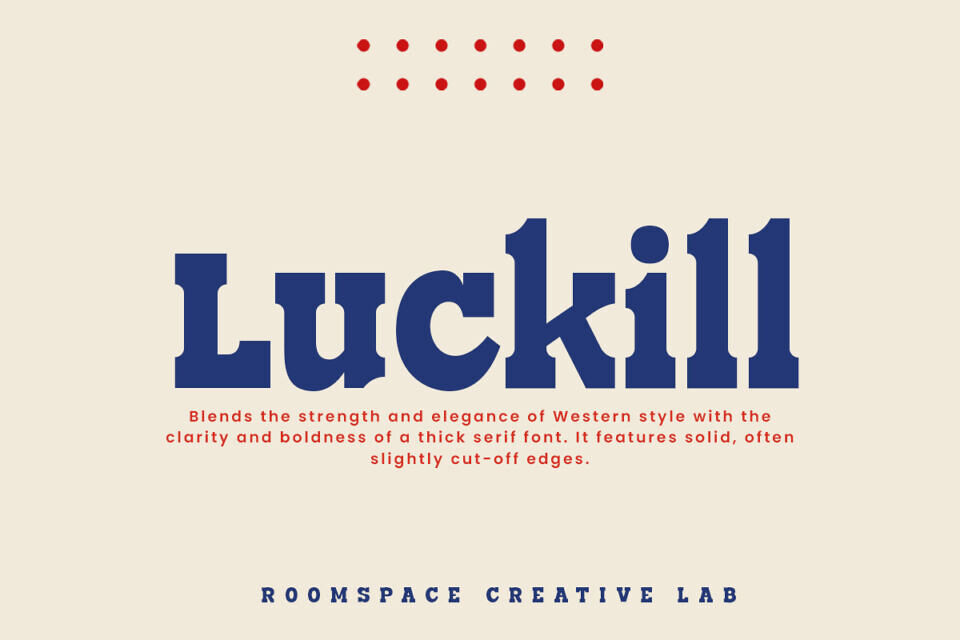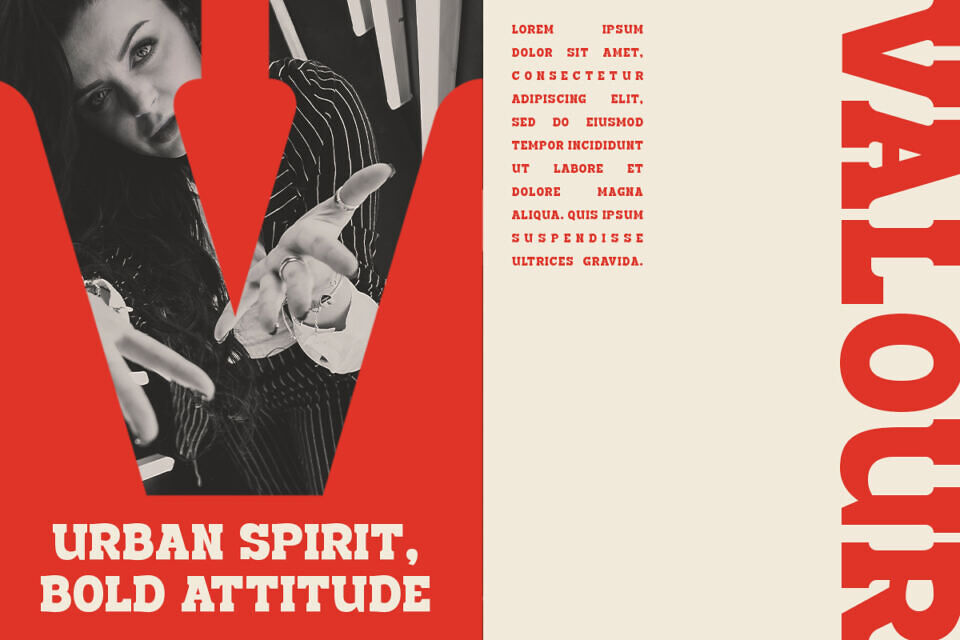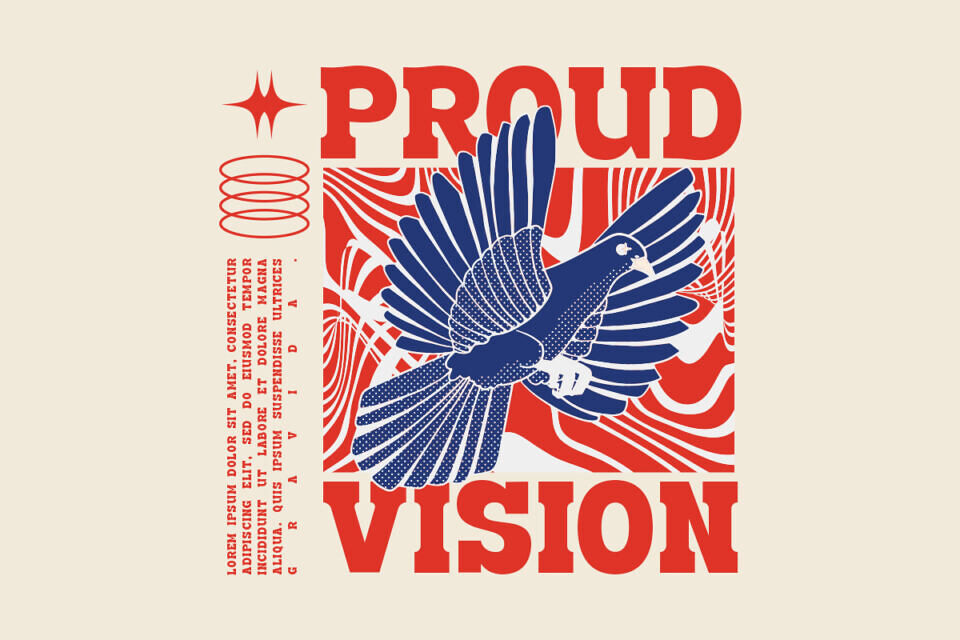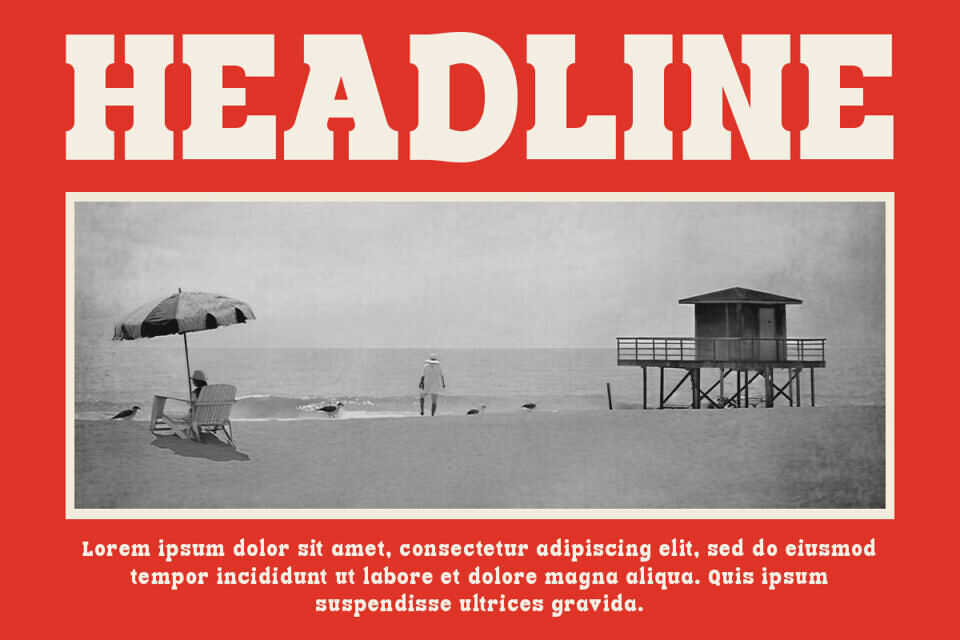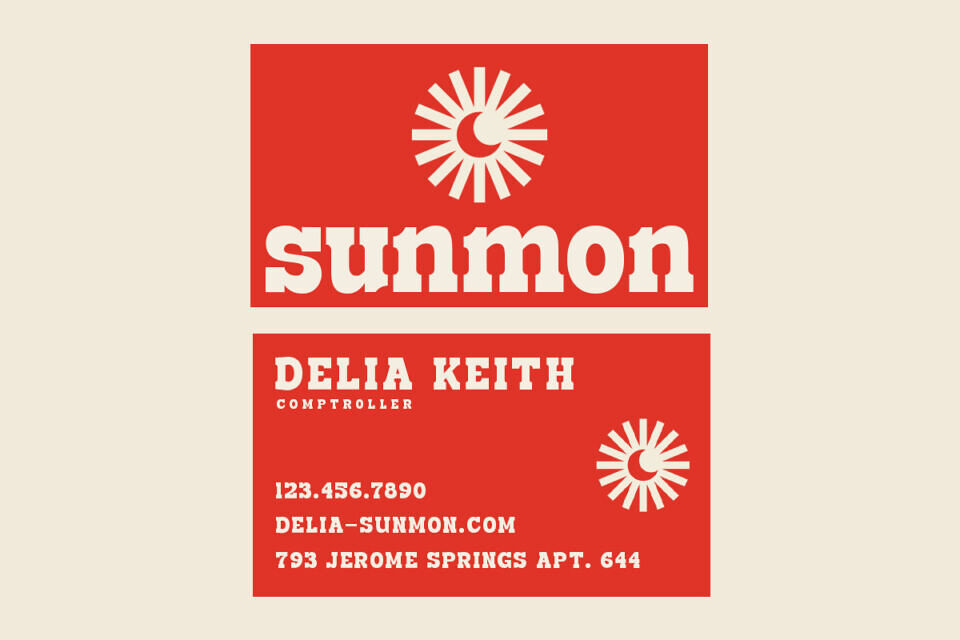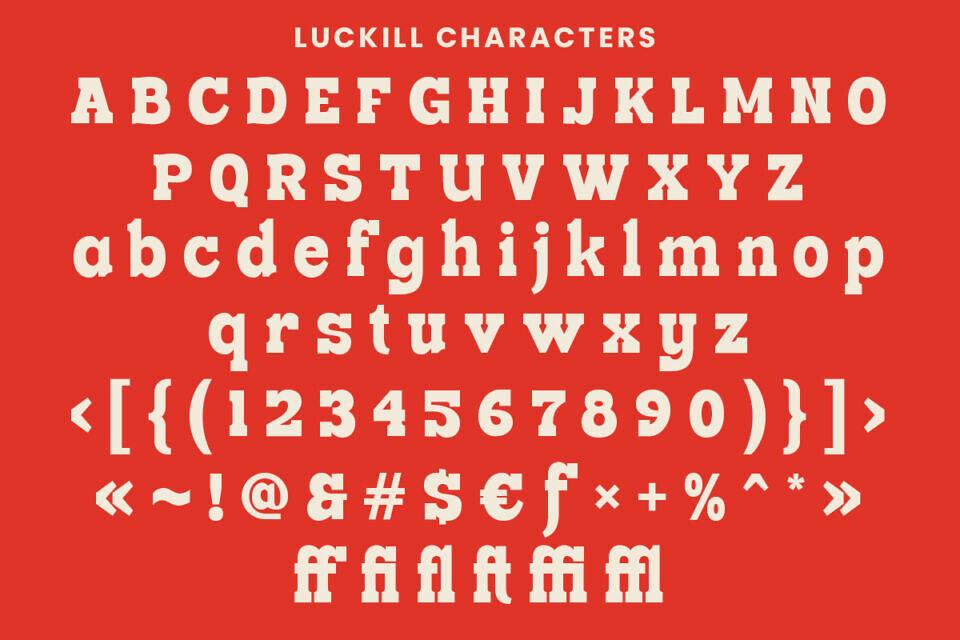
Luckill font blends the strength and elegance of Western style with the clarity and boldness of a thick serif font. It features solid, often slightly cut-off edges, giving it a strong and confident appearance perfect for headlines and big titles.
Its serif adds a classic and refined touch, while the bold style adds boldness and strong visual appeal. This makes Luckill suitable for various graphic design purposes, such as posters, flyers, or article titles, where clarity and emphasis are essential.